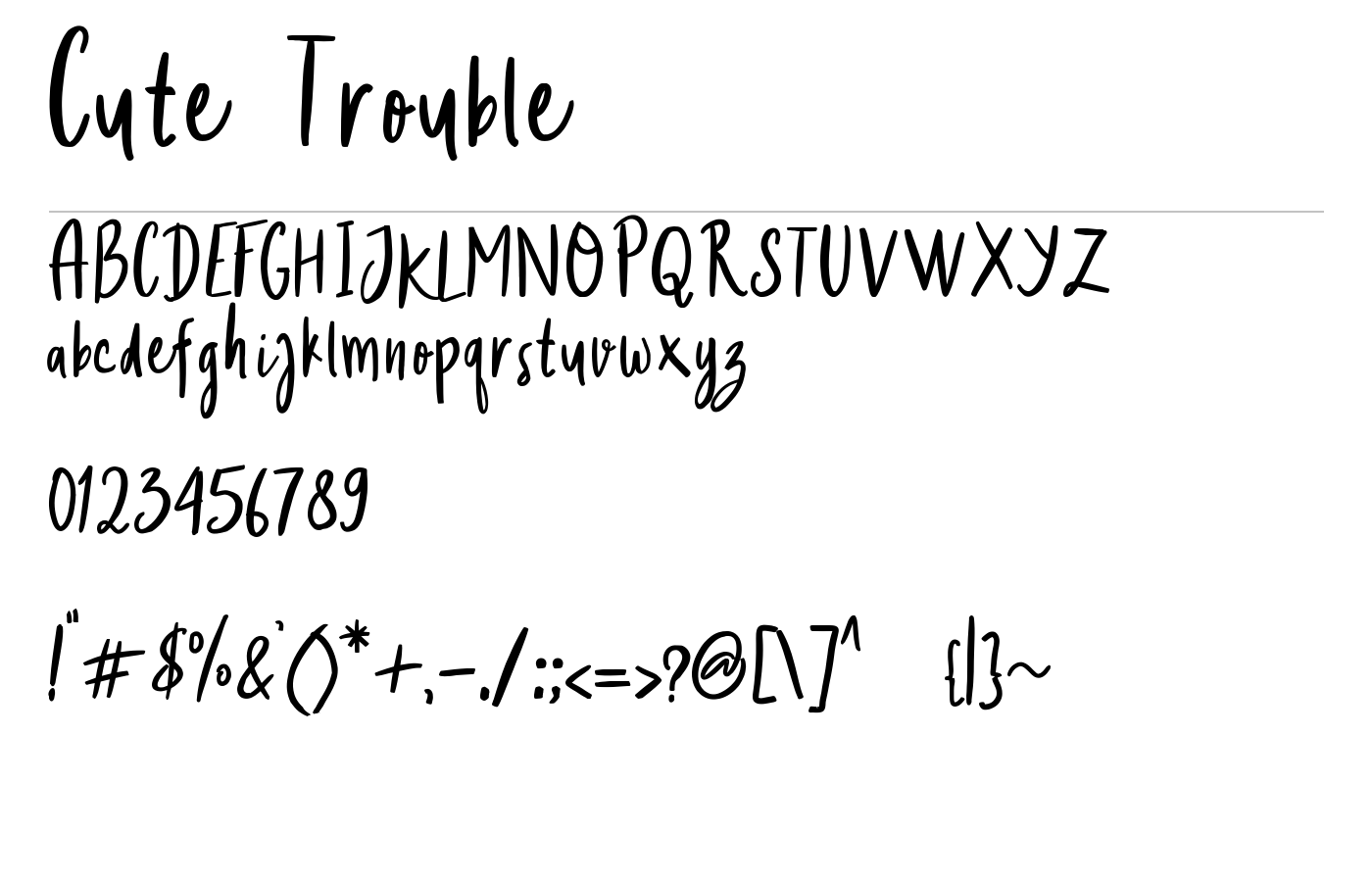
Cute Trouble is a playful, hand-drawn script font with a casual, friendly feel that brings a personal touch to any project. Its narrow, tall letterforms and varying stroke widths create an inviting, lively style perfect for informal branding, children’s products, or creative headlines. This font works well where a fun and approachable vibe is needed, such as greeting cards, posters, or social media graphics.
Cute Trouble Font
About Cute Trouble Font
| Font family | Cute Trouble Font |
| Designer | Double Z Studio |